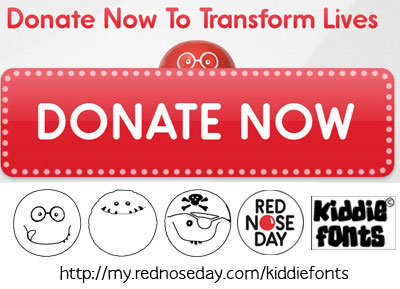
Red Nose Day by SpideRaY is a free cartoon dingbat font packed with round faces, clownish features, and exaggerated expressions. Wide grins, open mouths, spiky hair, and angular masks recur throughout.
Charity campaign graphics and party invitations draw on the same immediate silly humor, though the faces range from warmly cheerful to strange and slightly unruly. For stickers, children's event posters, or novelty merchandise, each symbol can become a tiny illustrated character, a comic badge, or part of a larger crowd scene. The simple silhouettes and broad expressions make this collection especially apt for younger family audiences and fans of broad visual comedy.